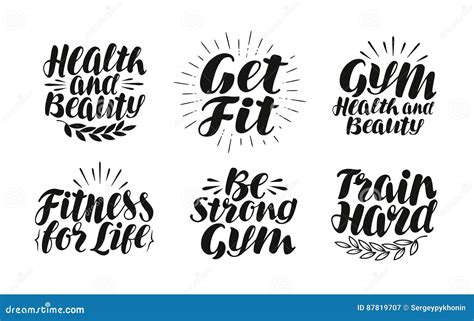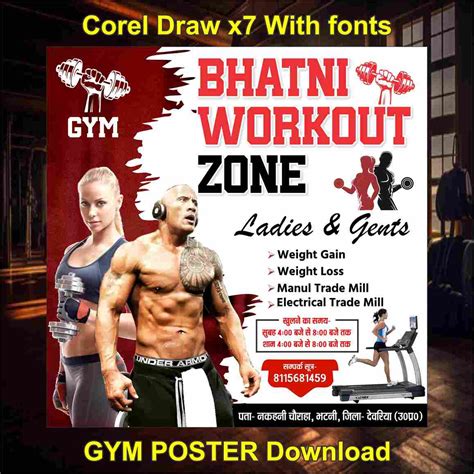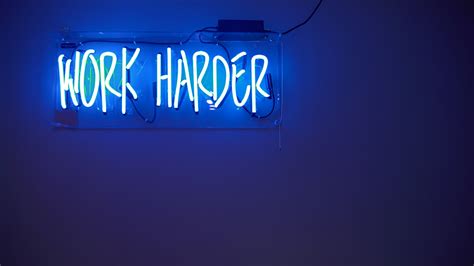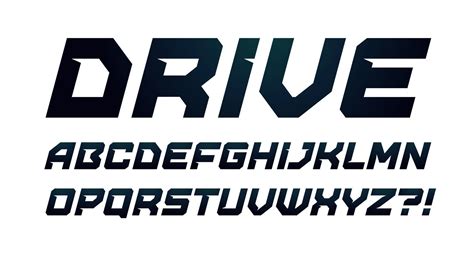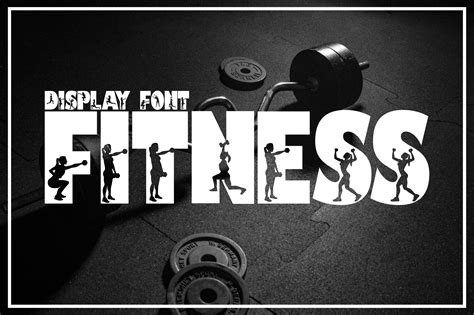
Selecting the rightfield font for gym branding is a critical decision that regulate how your target audience perceive your fitness business. Whether you are establish a high-intensity interval training studio, a hardcore musclebuilding facility, or an upscale yoga retreat, the typography you choose transmit the "vibe" of your infinite long before a client stairs through the door. A racy, strong-growing typeface can express power and survival, while clear, minimalist line intimate proportion, precision, and modernistic convalescence. When building a optical identity, the font serves as the voice of your brand; it must be legible, memorable, and align with the physical culture you aim to further.
Understanding Fitness Typography
The psychology of design plays a massive function in market fitness service. When citizenry look for a spot to train, they are looking for motivating, community, and professional credibility. Your alternative of font deed as a non-verbal cue for these expectations.
Types of Fonts for Fitness Branding
- Bold Sans-Serif: These are the workhorse of the industry. Typeface like Impact or Montserrat transmit authority, constancy, and speed. They are double-dyed for large-scale wall artwork and signage.
- Geometric Fonts: Frequently utilise by modern, tech-forward gym. These fonts are unclouded and symmetrical, appealing to athletes who appreciate minimalist efficiency.
- Slab-Serif: Think heavy, blockish, and industrial. These work exceptionally easily for gyms that direction on powerlifting, strongman education, or old-school iron sports.
- Script and Hand-Lettered: Usually appropriate for boutique studio, these fonts can convey a personal, artisan touching for yoga, pilates, or rehabilitation clinics.
Matching Font Style to Gym Niche
Not all fitness center function the same patronage. A powerlifting gym and a restorative health heart should ne'er use the same case. Below is a breakdown of how different recession employ specific aesthetic profile to convert visitor into appendage.
| Gym Niche | Font Style Recommendation | Ocular Issue |
|---|---|---|
| Powerlifting/Heavy Iron | Heavy Slab-Serif or Industrial | Strength, Durability, Tradition |
| HIIT/Cross-Training | Bold, Condensed Sans-Serif | Agility, Speed, Intensity |
| Yoga/Pilates | Thin Geometric or Elegant Serif | Repose, Balance, Sophistication |
| Luxury/Private Personal Training | High-Contrast Serif or Modern Sans | Exclusivity, Quality, Premium Service |
Practical Application for Signage and Apparel
Formerly you have identified your main font, you must study its versatility. A font that appear outstanding on a website might be illegible on a printed t-shirt or a high-up exterior sign. Always test your chosen typeface in assorted sizing, weight, and high-contrast color combinations.
💡 Tone: Always assure your chosen composition maintain eminent contrast against your brand colouring to ensure accessibility for members with sight deterioration.
The Impact of Kerning and Weight
Opt the typeface is solely half the battle. Align the kern —the space between letters—can fundamentally change the feel of your logo or signage. Tight kerning often makes a font feel more modern and premium, whereas wider tracking can create a sense of breathability and openness, which is highly desirable for wellness-focused gyms. Furthermore, the weight (bold vs. light) dictates the perceived “loudness” of your brand. A very thick, heavy weight screams high energy, perfect for high-octane environments, while lighter weights invite focus and clarity.
Avoiding Common Branding Pitfalls
One of the most frequent misunderstanding is utilise too many fonts. A cohesive make individuality typically requires no more than two or three fount: one for headlines, one for body schoolbook, and one for dialect. Using a different font for every piece of marketing collateral make a helter-skelter, unprofessional image that confuses potential extremity. Stick to a font house that offer multiple weights so you can maintain consistency while creating optical hierarchy.
Finally, the composition you choose deed as the understood embassador for your business. By selecting a font that aligns with your specific training philosophy - whether that is vivid, results-driven strength education or mindful, calm recovery - you effectively intercommunicate your values to prospective appendage. Prioritize consistency across all your program, insure your chosen style remain legible in any format, and keep the user experience at the head of your design conclusion. When your ocular esthetical perfectly matches the caliber of your training program, you make a powerful brand that resonate with your community and inspire appendage to advertize their physical limits every individual day.